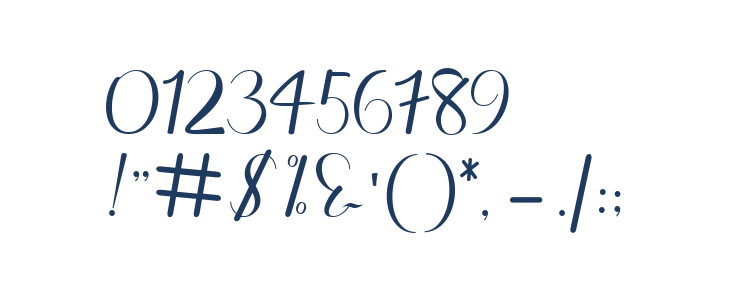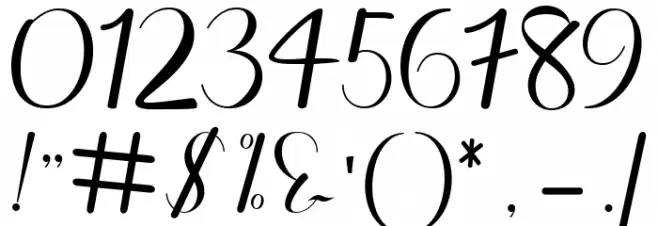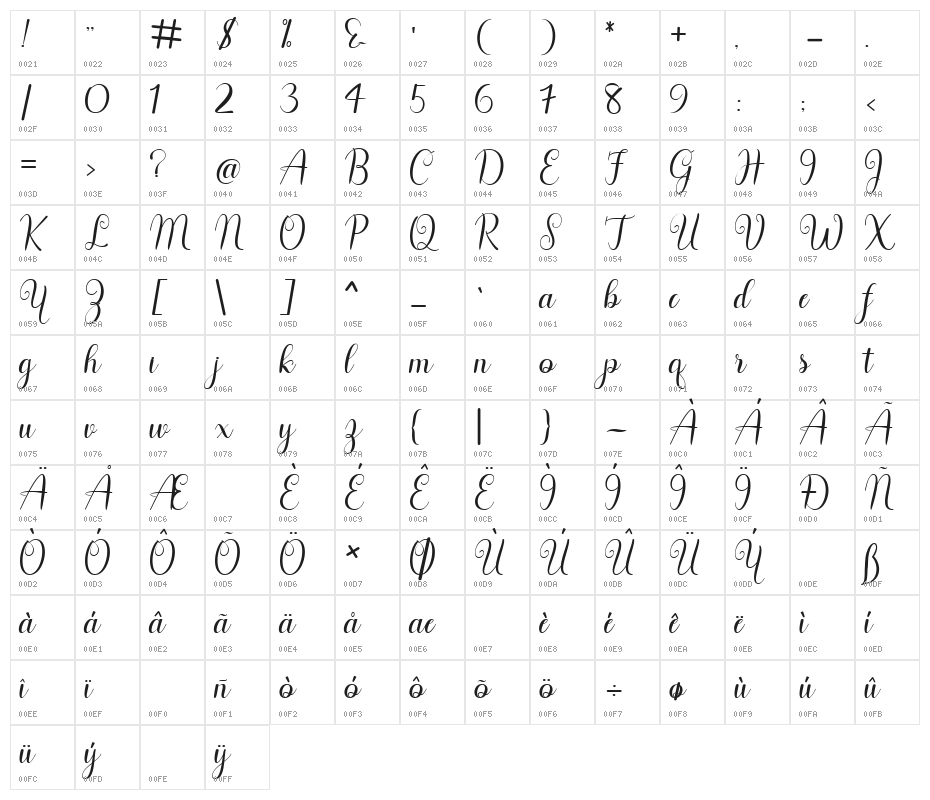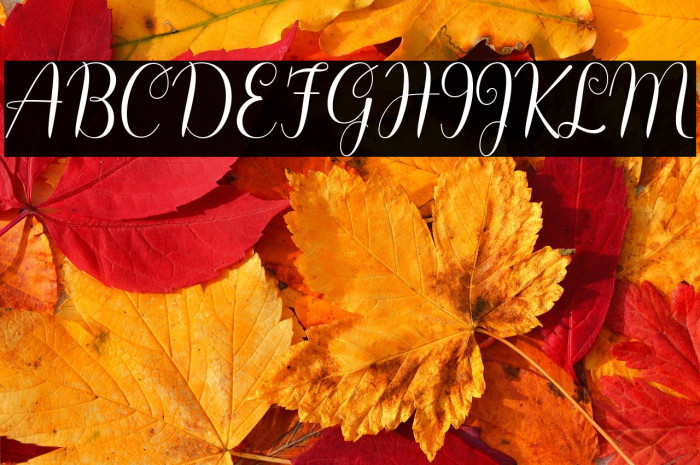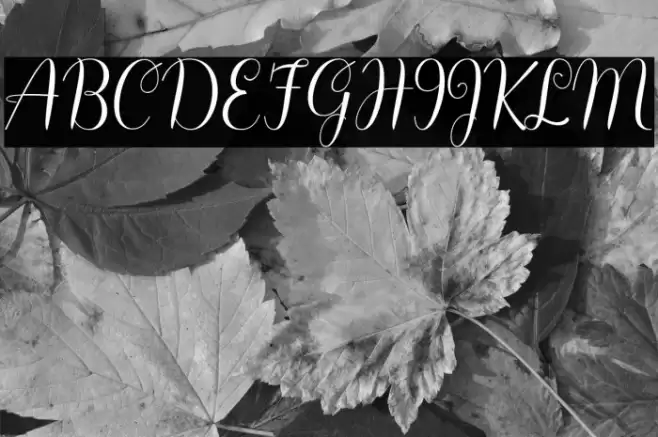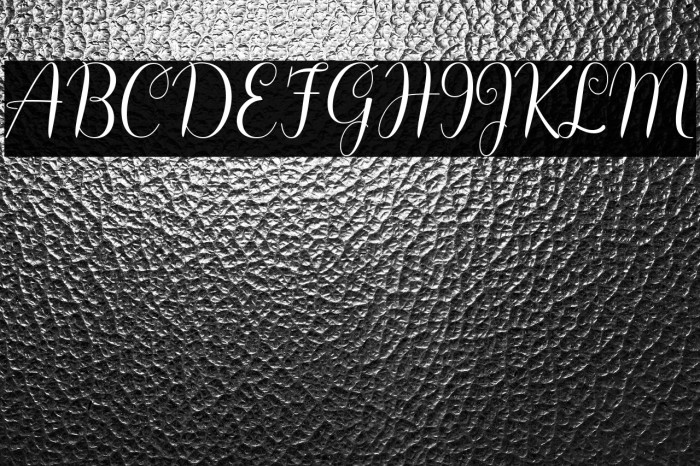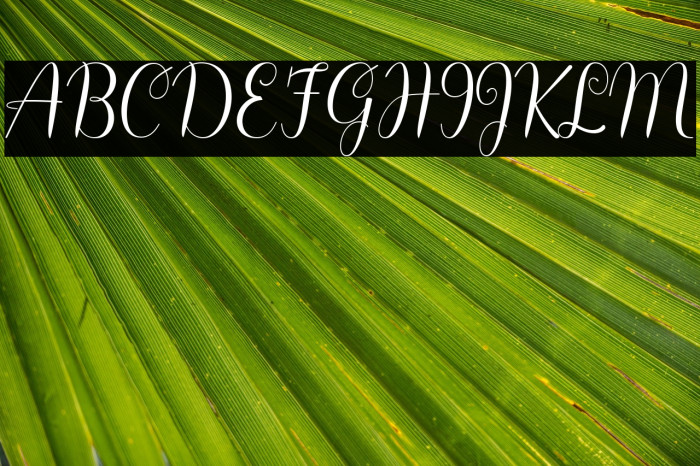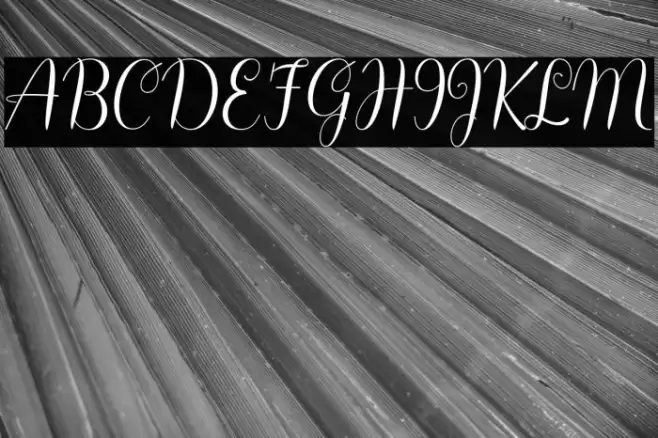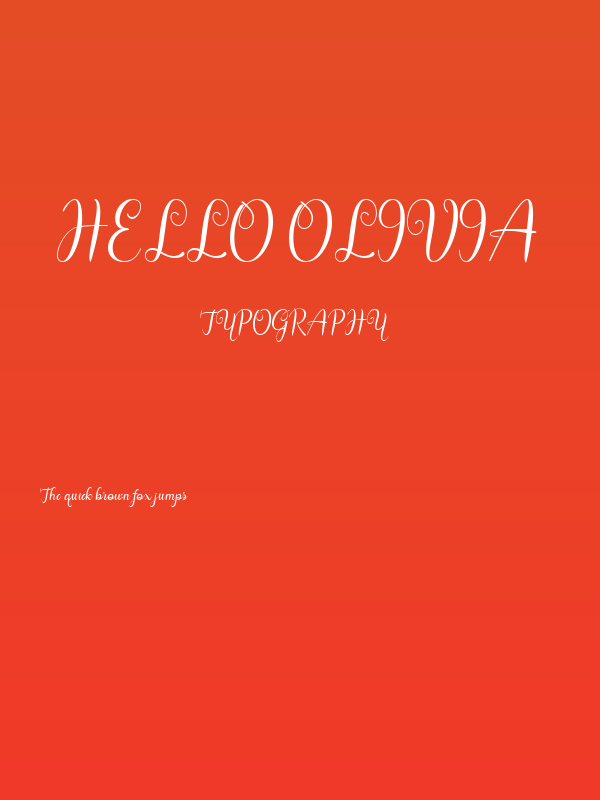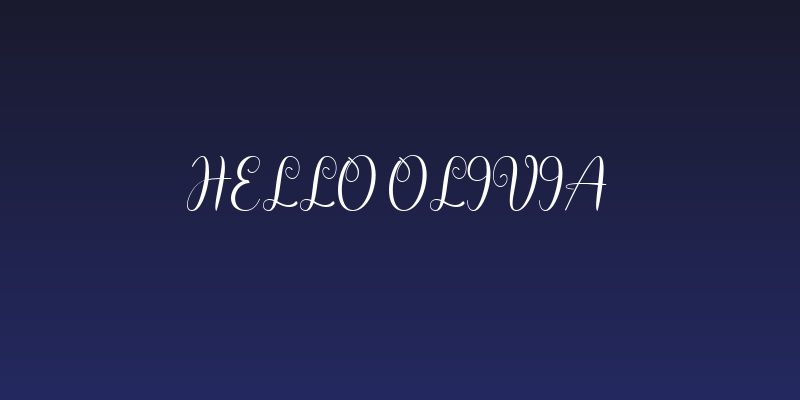
Hello Olivia Font
Hello Olivia Description
This elegant script font features flowing, interconnected letters with a calligraphic style. The uppercase letters are tall and graceful, with sweeping curves and loops that give a sense of movement and fluidity. The lowercase letters maintain a consistent style, with smooth transitions between strokes and a slight slant that adds to the overall elegance. The numerals are distinct and easy to read, while the special characters complement the font's sophisticated appearance. This font is perfect for creating a refined and stylish look, suitable for formal invitations, branding, and decorative purposes.
| Overall Style | Elegant, Calligraphic |
| Use Case | Invitations, Branding, Decorative |
| Proposed Projects | Ideal for wedding invitations, elegant branding, decorative signage, and formal event materials. |